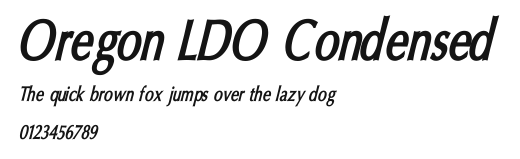
• Font Name: Oregon LDO Condensed
• Designer: Luke Owens
Oregon LDO Condensed.ttf is a modern, elegant sans-serif font designed for ultimate readability and visual harmony. Perfect for branding, headlines, web design, and print materials.